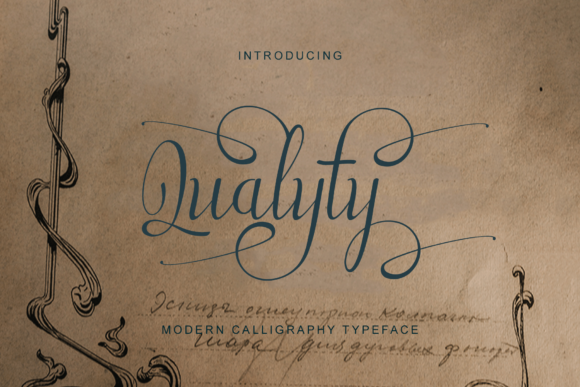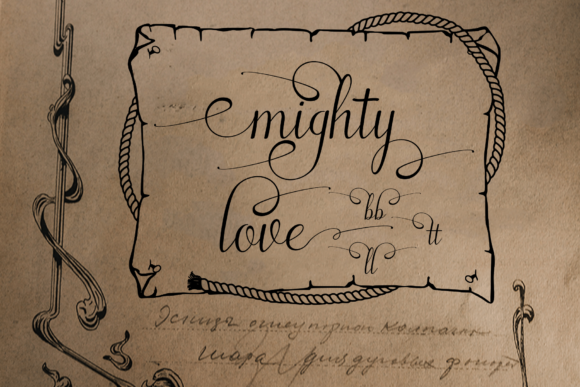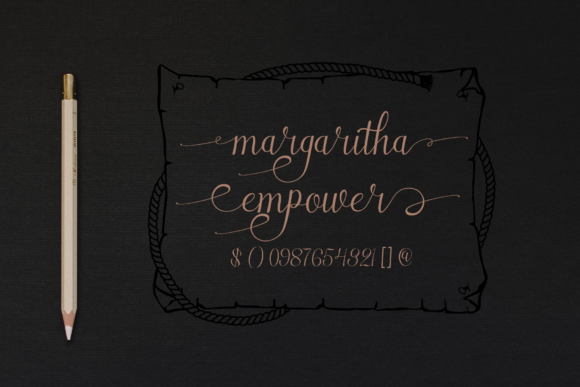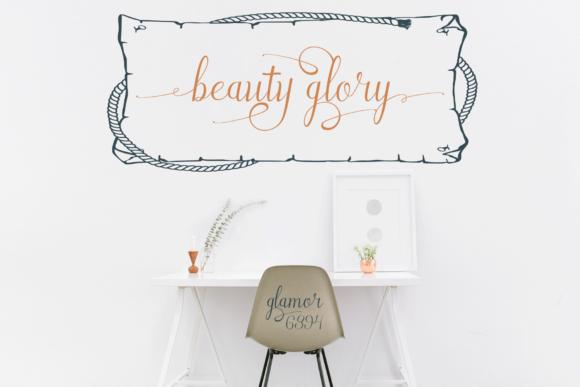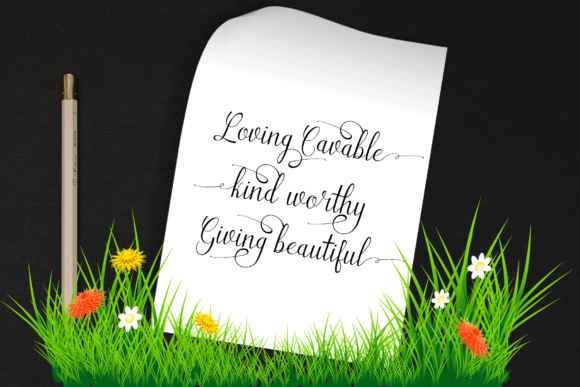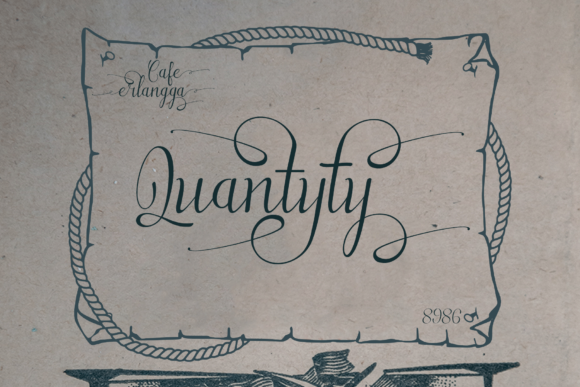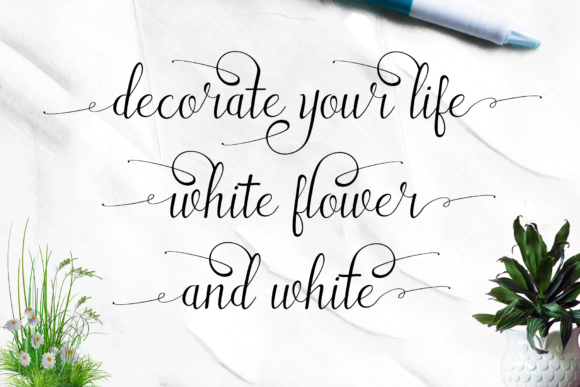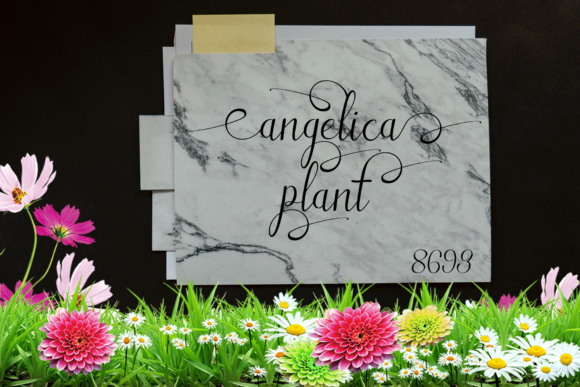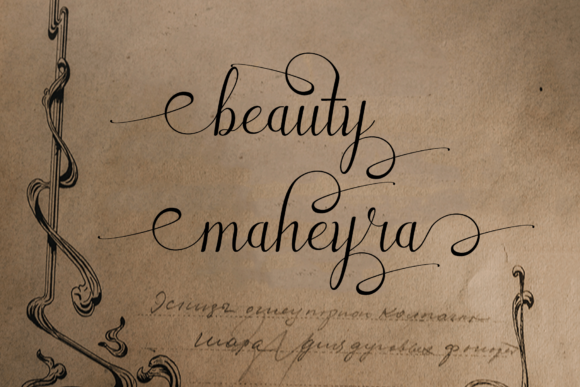
Qualyty Font
About Qualyty Font
Qualyty is a gorgeous love letter to classic calligraphy and contains wonderful swashes. Fall in love with this unique script, and turn any design project into a true piece of art!